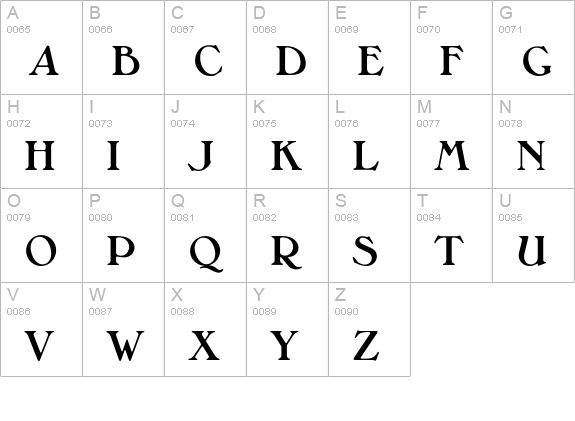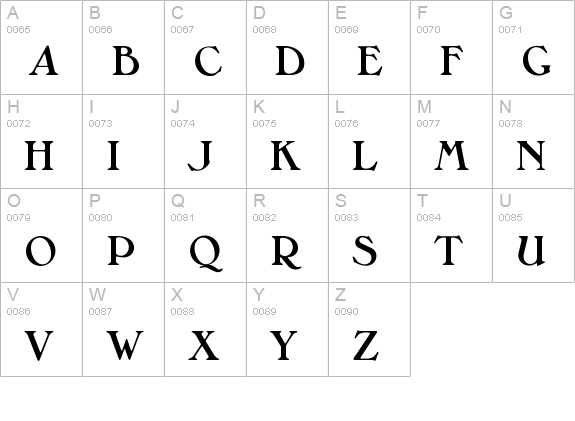
Melborne-DemiBold is a sub-bold, structured variant in the Melborne typeface family \xE2\x80\x94 well suited to sub-headlines and emphasised passages.
Melborne-DemiBold font is a versatile and modern typeface that strikes the perfect balance between sophistication and readability. Its bold and sturdy letterforms make it ideal for headlines, titles, and branding projects that demand attention. The sleek lines and strong presence of Melborne-DemiBold exude confidence and style. One of the best things about Melborne-DemiBold font is that it is available for free download at FontsMarket.com. This means you can easily access and use this beautiful typeface for all your design needs without any cost. Whether you are working on a print design, web project, or any other creative endeavor, Melborne-DemiBold is sure to elevate your work with its bold and impactful presence. With its clean and contemporary design, Melborne-DemiBold is a must-have font for designers looking to make a statement. Its versatility and readability make it a go-to choice for any design project that requires a touch of sophistication and modernity. Download Melborne-DemiBold for free today and take your designs to the next level.